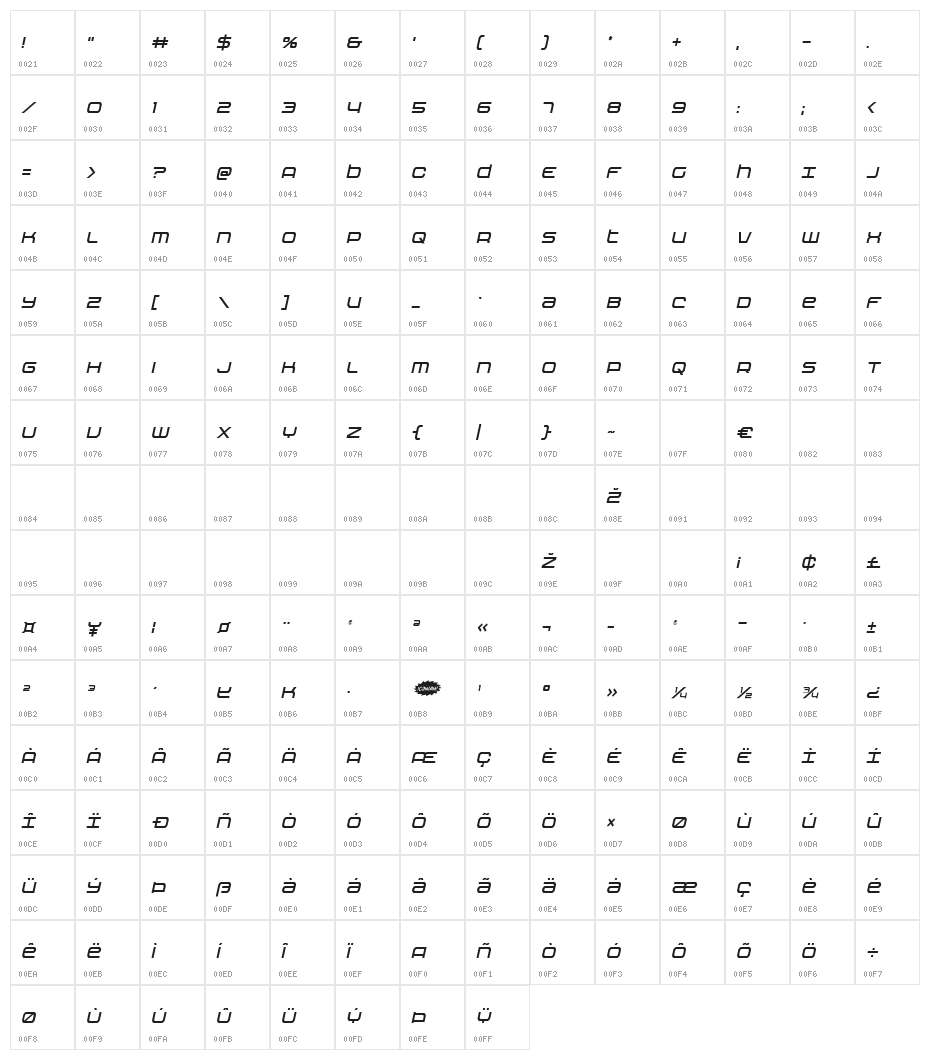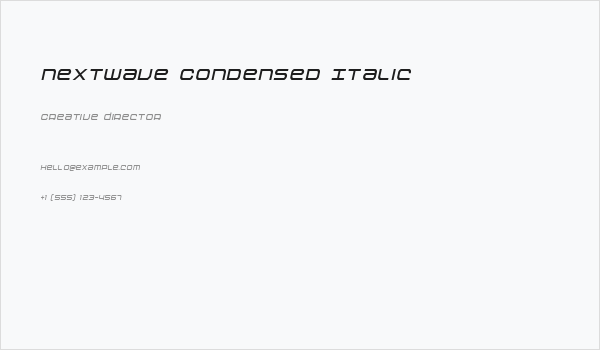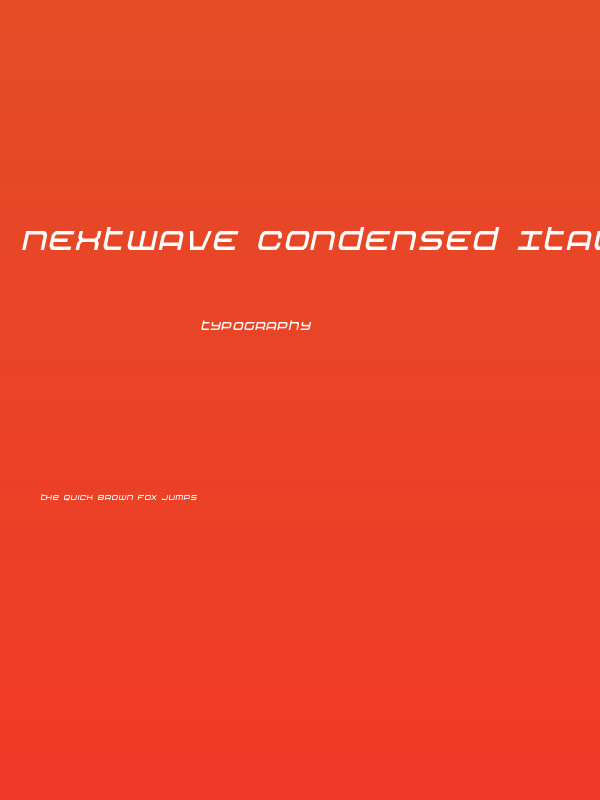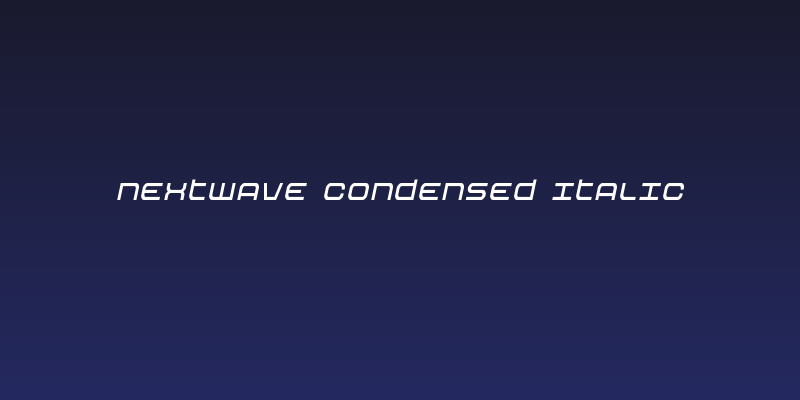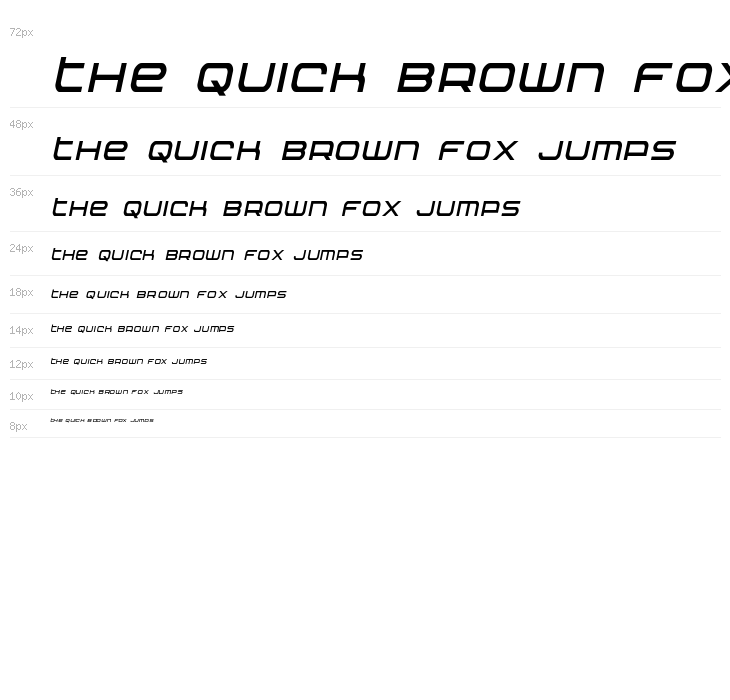
Nextwave Condensed Italic Font
Nextwave Condensed Italic Description
This font exhibits a sleek and modern design with a distinctly futuristic feel. The characters are slightly slanted, giving an italicized appearance that enhances its dynamic and forward-moving aesthetic. The strokes are consistent in thickness, providing a uniform look across all characters. The condensed nature of the font allows for efficient use of space, making it ideal for settings where space is limited but style is crucial. The clean lines and geometric shapes contribute to its contemporary appeal, making it suitable for tech-oriented or innovative projects. The font maintains readability while offering a unique visual flair, making it versatile for various design needs.
Use CaseHeadlines, Logos, Branding
Proposed ProjectsIdeal for tech branding, futuristic posters, modern web design, and innovative product packaging.